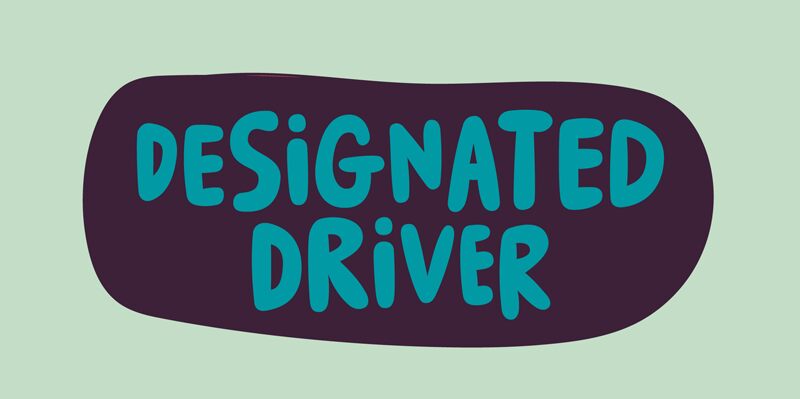
Designated Driver DEMO
Designated Driver, a bold and playful display font crafted by Pizzadude, exudes a carefree, comic-inspired aesthetic. Its distinct character shines through its dynamic letterforms, seamlessly blending whimsical curves and sharp edges. This font's bold presence commands attention, inviting a sense of fun and energy into any design.
Designated Driver's versatility allows it to captivate audiences across a wide spectrum of creative projects, from vibrant event promotions and lively product packaging to engaging social media content and memorable branding initiatives.